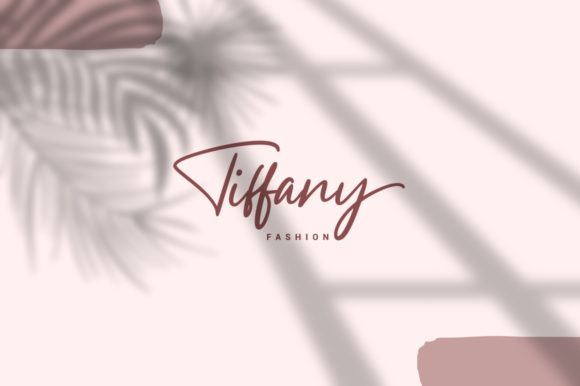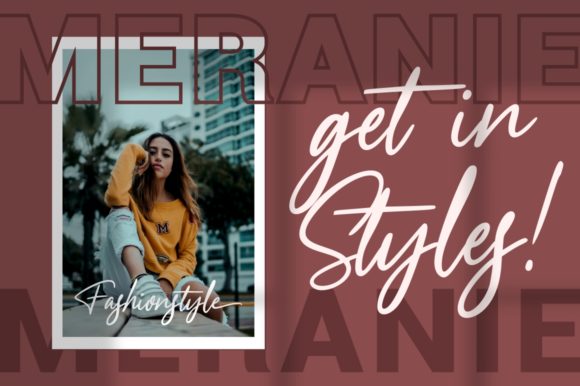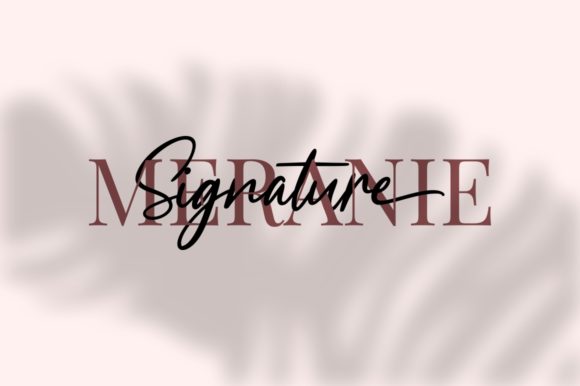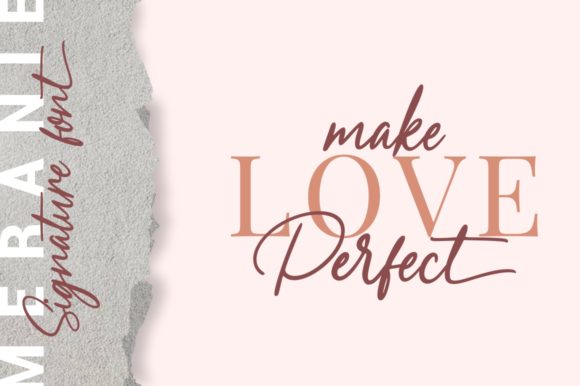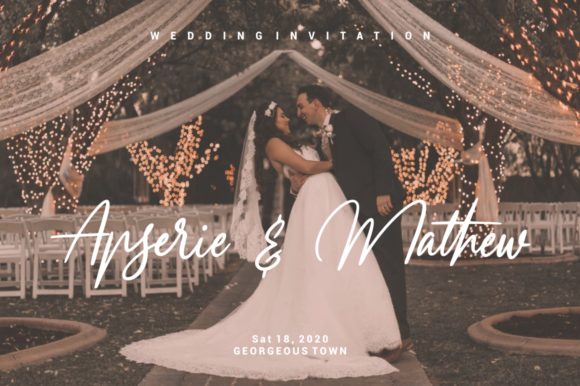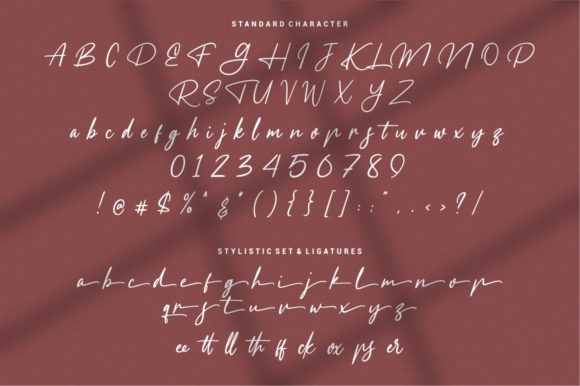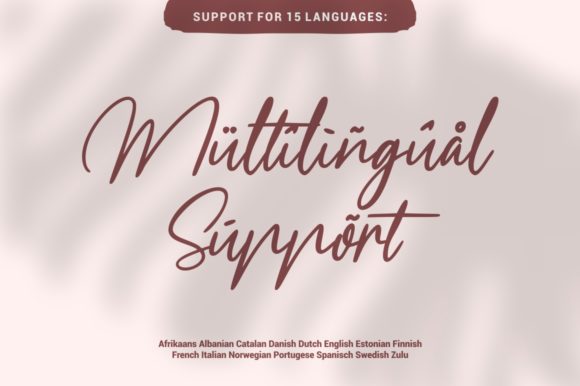
HomeScript FontsMeranie Font Script Fonts Meranie Font FacebookXPinterestWhatsApp Meranie Font Poster 2 Meranie Font Poster 3 Meranie Font Poster 4 Meranie Font Poster 5 Meranie Font Poster 6 Meranie Font Poster 7 Meranie Font Poster 8 About Meranie Font Meranie is a handmade script with lovely flowing curves. Get inspired by its romantic look & feel! DOWNLOAD NOW People also explored Griswold Font Disforia Inersia Font Asphalt Font Boho Font Malison Font Cute Aurel Font Thrylos Child Font Hurst Family Font Pink Friday Font 330 0 TagsMeranie Font Previous articleFathani FontNext articleAllegroost Font LEAVE A REPLY Cancel reply Comment: Please enter your comment! Name:* Please enter your name here Email:* You have entered an incorrect email address! Please enter your email address here Website: Save my name, email, and website in this browser for the next time I comment. Personal Use Free Multicolore Personal Use Free Read more about this font Vinograd Personal Use Free Read more about this font Soria Personal Use Free Read more about this font Eaglese Personal Use Free Read more about this font BLOG 5 Fonts That Will Dominate Design Trends in 2026 5 Fonts for 2026 That Will Dominate Design Trends Typography plays a critical role in visual communication, and as we look ahead to 2026, it’s... Fonts That Capture the Spirit of New York City To increase your work productivity, choose the most readable fonts. Using Fonts in Digital Marketing: Tips to Strengthen Your Brand Identity